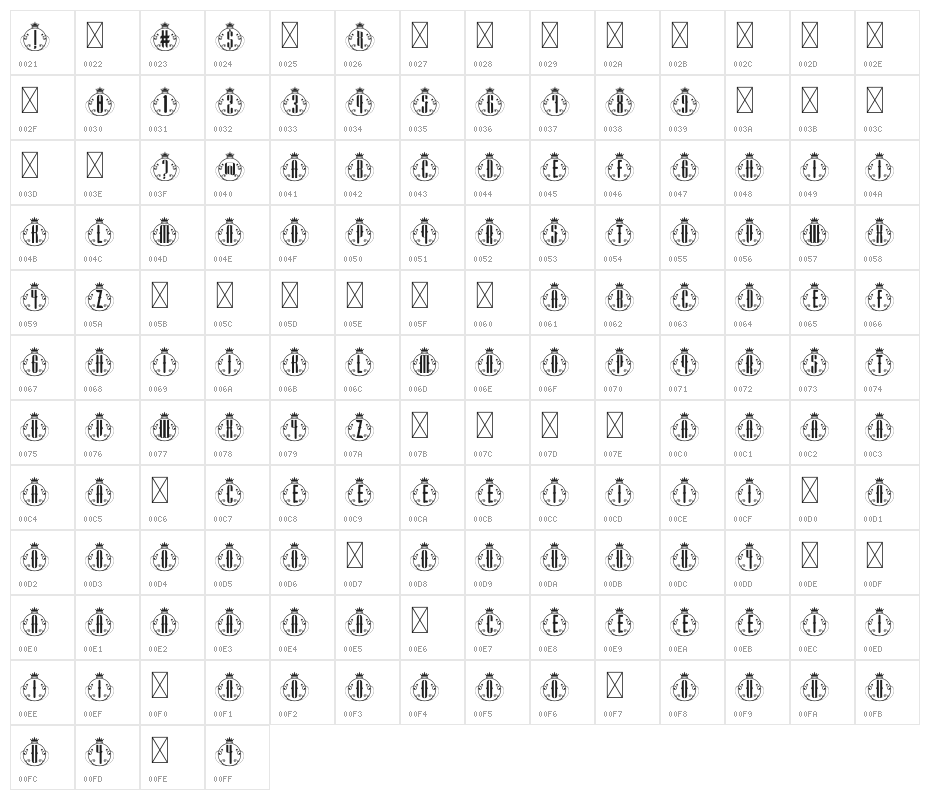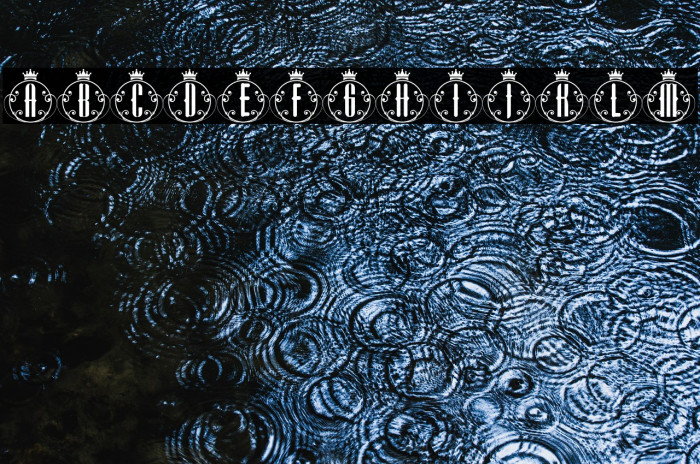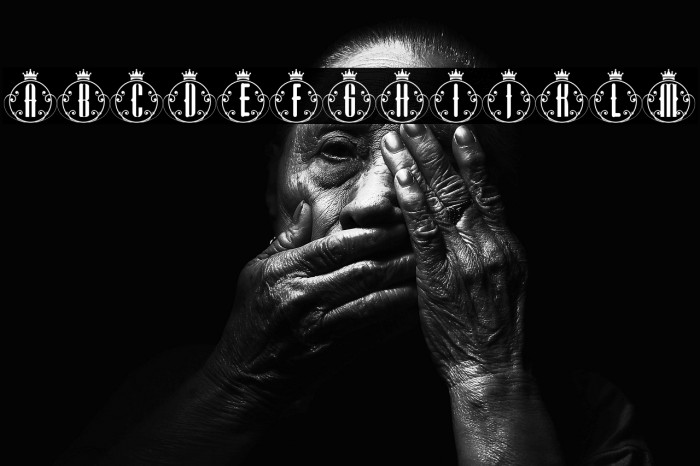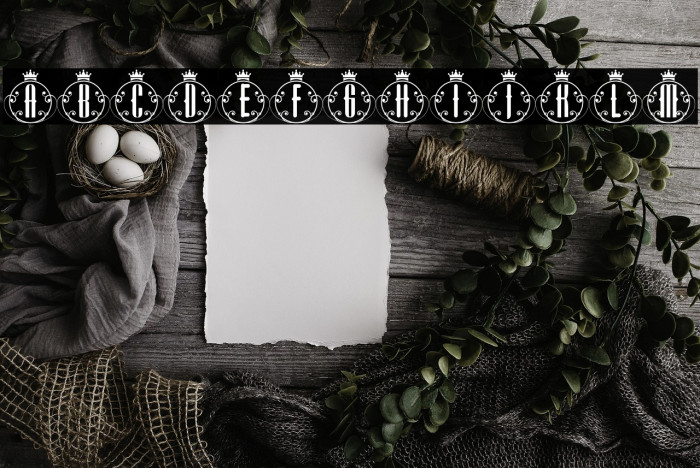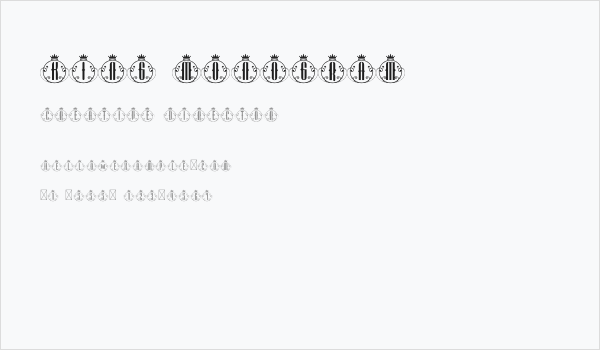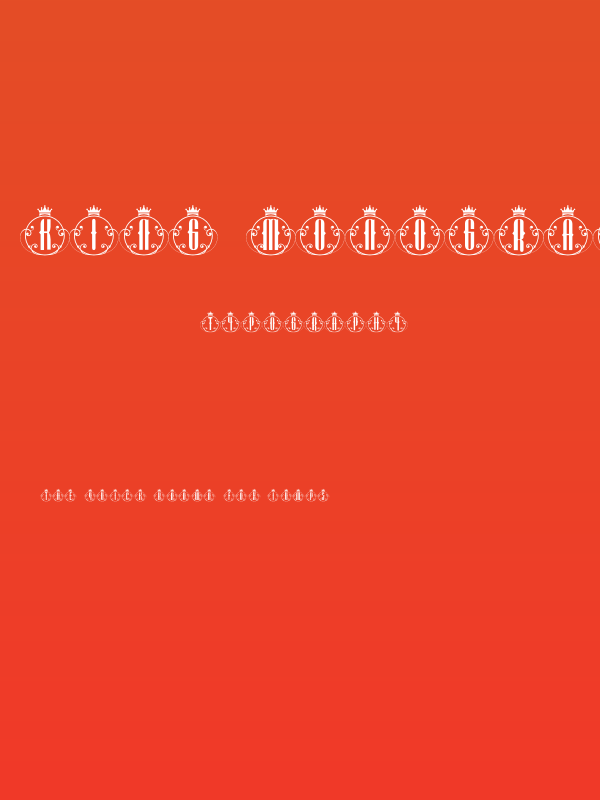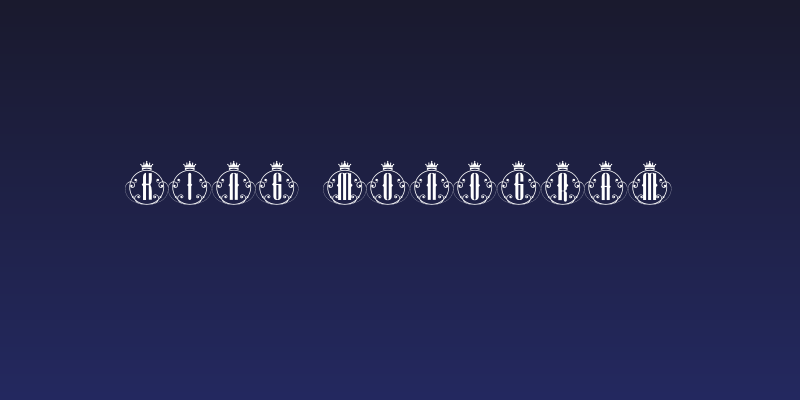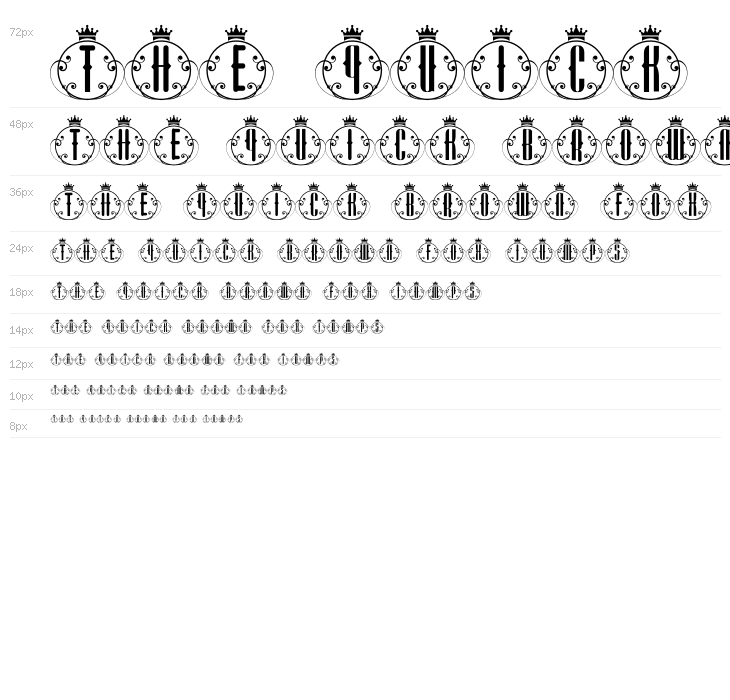
King Monogram Font
King Monogram Description
This font features an ornate and regal design, with each character encased in a circular frame adorned with intricate flourishes and topped with a small crown. The letters and numbers are bold and elegant, combining a sense of tradition with a touch of luxury. The decorative elements enhance the overall aesthetic, making it suitable for projects that require a sophisticated and royal appearance. The font maintains a consistent style across uppercase, lowercase, and numerical characters, ensuring a cohesive look.
| Use Case | Logos, Invitations, Branding |
| Proposed Projects | Ideal for luxury branding, wedding invitations, high-end product packaging, and decorative monograms. |